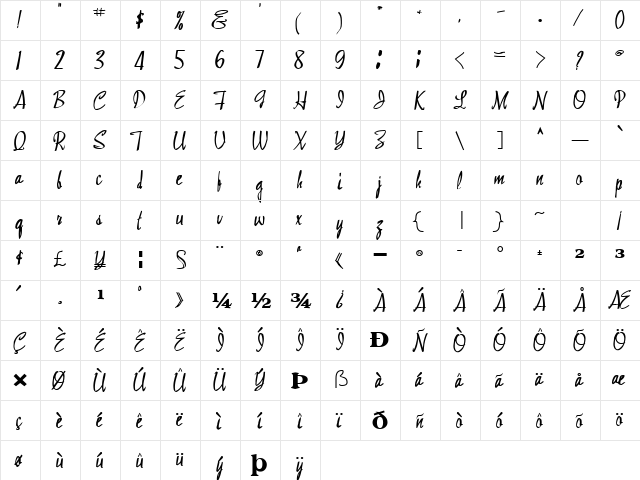
GramMy79 Bold Font Preview
GramMy79 Bold
Design Context for GramMy79 Typeface
GramMy79 is a composed and adaptable typeface that performs quietly and consistently across a wide range of design contexts. Its bold stroke weight gives it real presence on the page.